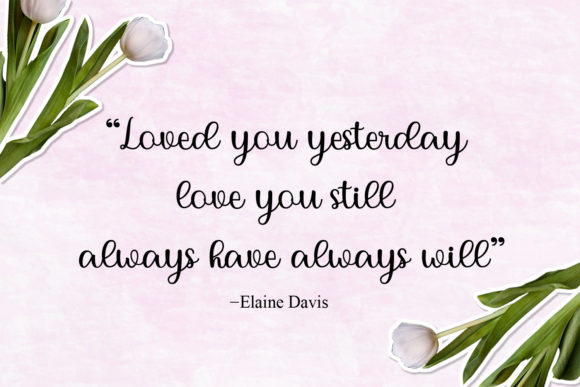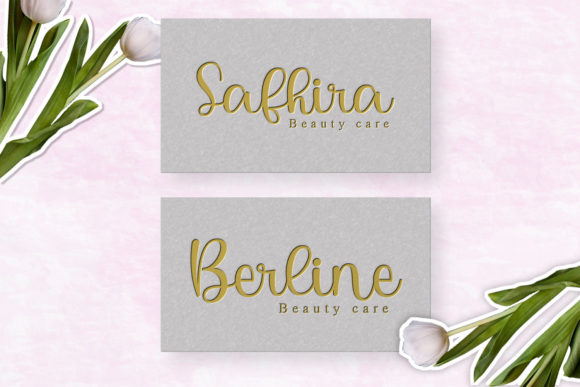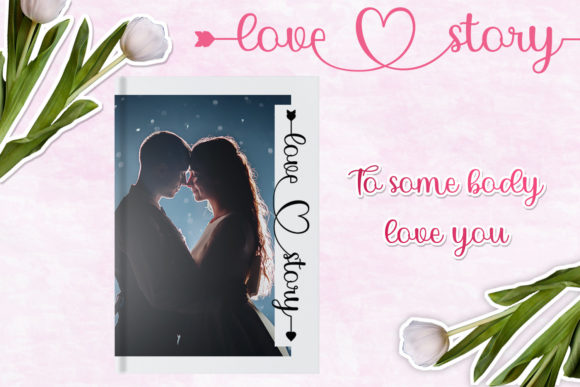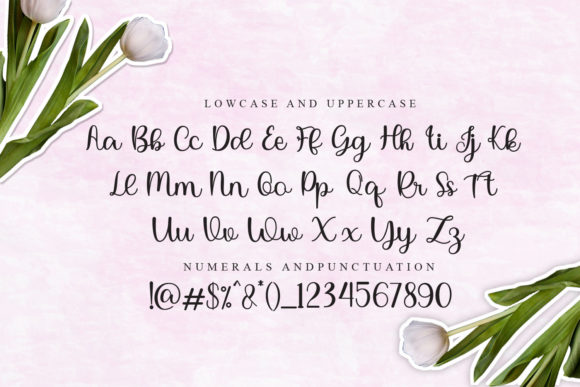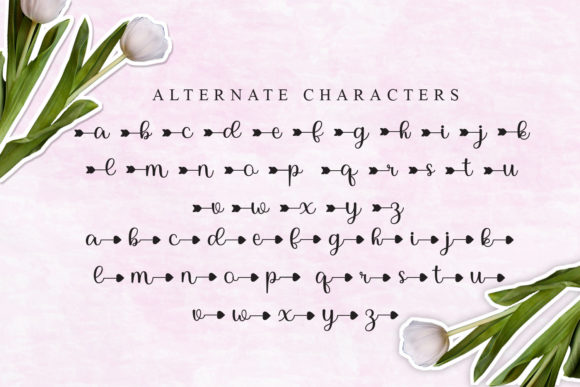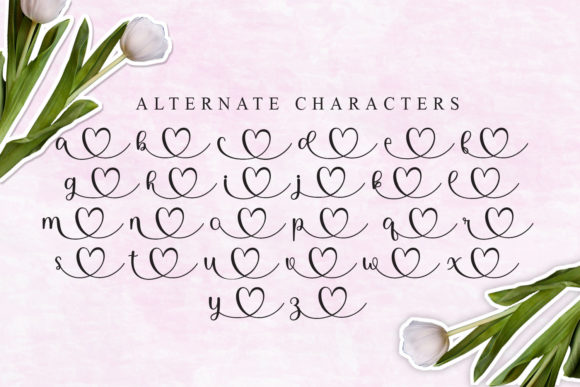
Sania Lucian Font
About Sania Lucian Font
Sania Lucian is a romantic and sweet calligraphy typeface with characters that dance along the baseline. It will add a luxury spark to any design project that you wish to create! This font is PUA encoded which means you can access all of the amazing glyphs and ligatures with ease!